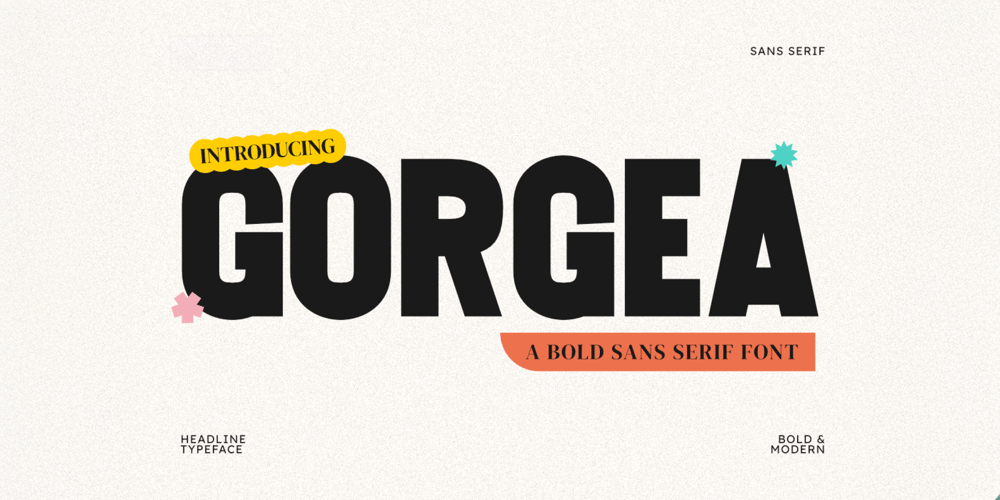
Gorgea
Gorgea font
Gorgea Font Family was designed by Dani Irawan and published by GraphTypika. Gorgea contains 2 styles and family package options. Introducing GorgeaGorgea is a bold and modern display sans serif font designed to command attention with its striking geometric lines and contemporary edge. Perfect for headers, titles, and headings, it blends playful energy with assertive clarity, making it ideal for projects that demand both personality and impact. Its clean, high-contrast forms ensure readability at larger sizes, while subtle quirks in its design—like dynamic angles and balanced proportions—add a touch of whimsy without compromising professionalism. Whether for branding, posters, social media, or editorial layouts, Gorgea elevates any headline with confidence and modern flair.